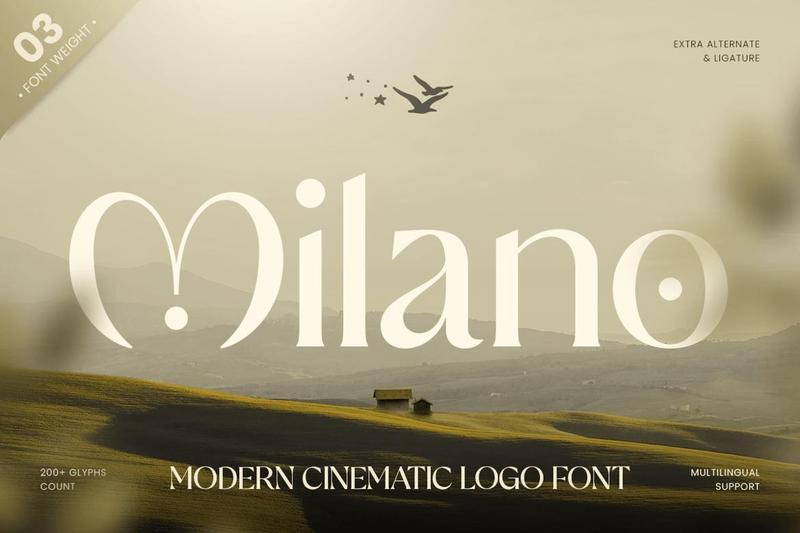
**Milano** is a **modern cinematic logo serif font** designed to bring elegance, drama, and refined sophistication to your visual identity. With its graceful serif details, cinematic proportions, and polished letterforms, this typeface is perfect for luxury logos, editorial titles, fashion branding, premium packaging, and high-end creative projects.
Inspired by timeless cinema aesthetics and modern luxury design, **Milano** creates a strong yet elegant typographic presence. Its refined curves and balanced contrast make every word feel exclusive, memorable, and visually expressive across both print and digital media.
Whether used for film titles, magazine layouts, boutique branding, wedding stationery, or premium product labels, **Milano** delivers a cinematic and sophisticated tone that elevates every composition.
**Milano Modern Cinematic Logo Serif Font Features**
* Modern cinematic serif design with elegant logo appeal
* Also preapred with 3 weights: light, regular and bold
* Perfect for luxury branding, film titles, editorials, and packaging
* Refined serif details with premium visual character
* Ideal for fashion, beauty, lifestyle, wedding, and creative industries
* Uppercase, lowercase, numerals, and punctuation included
* OpenType features for enhanced typographic styling
**Create cinematic elegance with Milano the perfect modern serif font for luxury logos, refined branding, and premium editorial design.**